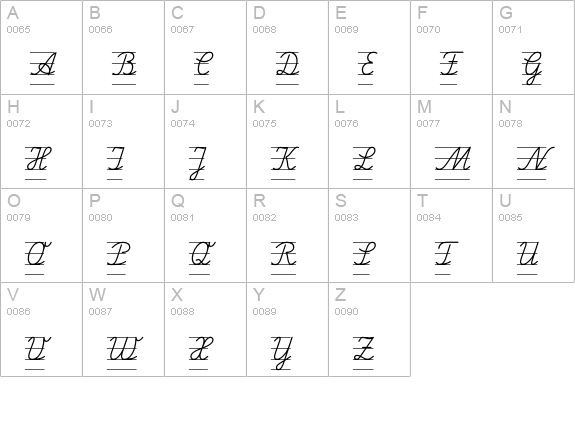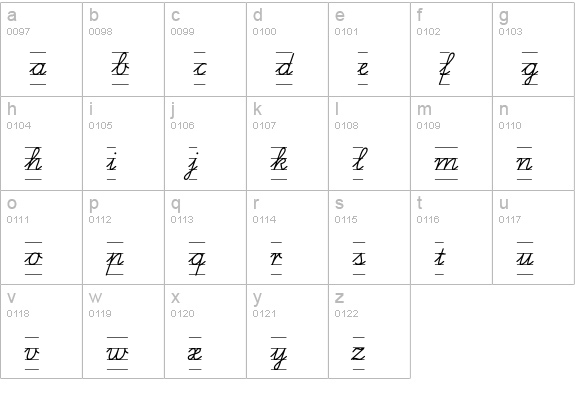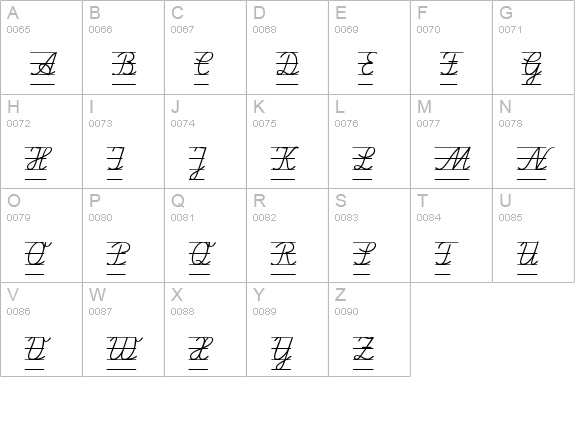
SchulschriftB-L4 Font Details
Introducing SchulschriftB-L4, a captivating and versatile font that effortlessly captures the essence of elegance and sophistication. This font is a perfect blend of classic charm and contemporary design, making it the ideal choice for a wide range of creative projects. With its clean lines, refined curves, and impeccable attention to detail, SchulschriftB-L4 commands attention and adds a touch of refinement to any design. Whether you're creating stunning logos, eye-catching headlines, or elegant invitations, this font will effortlessly elevate your work to new heights. What sets SchulschriftB-L4 apart is not only its impeccable aesthetics but also its versatility. This font is equally at home in both formal and informal settings, making it a truly timeless choice. Its balanced proportions ensure legibility even at small sizes, making it the perfect companion for body text as well. But perhaps the most impressive aspect of SchulschriftB-L4 is that it is free! Yes, you read that right - this exquisite font is freely available to download at FontsMarket.com. Now, you can add a touch of sophistication to your designs without breaking the bank. So why wait? Take advantage of this incredible opportunity to enhance your creative endeavors with SchulschriftB-L4. Download it today from FontsMarket.com and let your imagination soar to new heights.